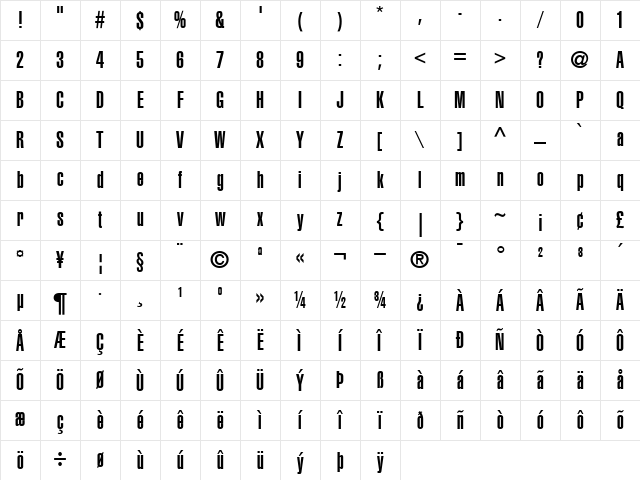
Helvetica-UltraCompressed Roman
Design Context for Helvetica-UltraCompressed
Helvetica-UltraCompressed is a composed and adaptable typeface that performs quietly and consistently across a wide range of design contexts.
Pro Tip: Use Helvetica-UltraCompressed in both headline and body roles to test its range before committing to a single application.